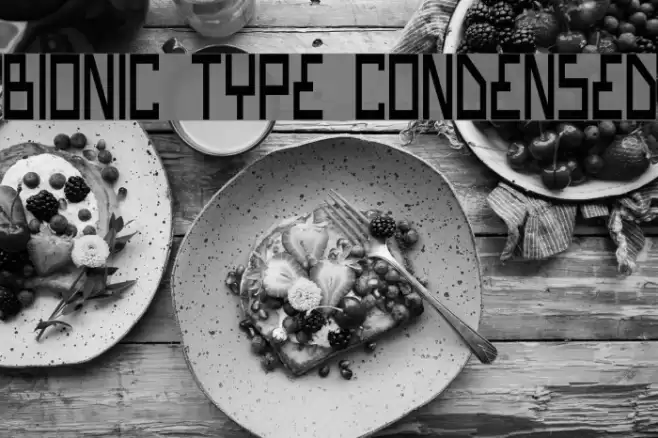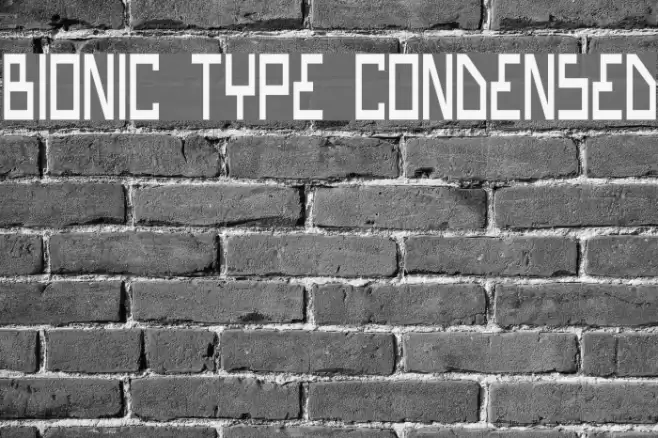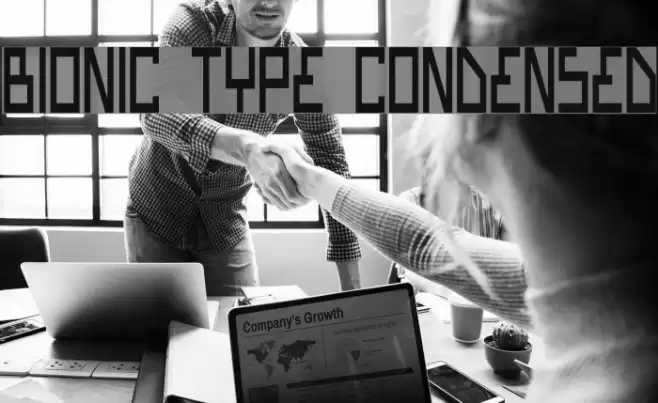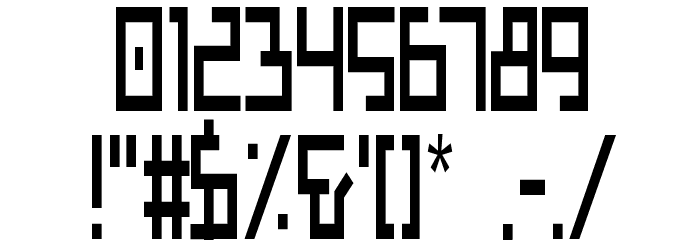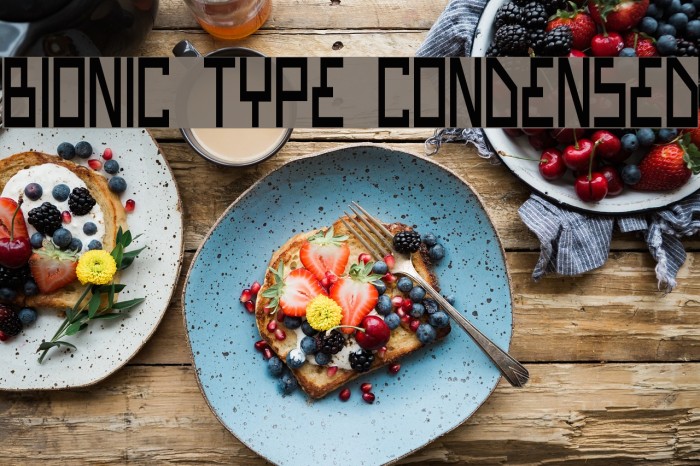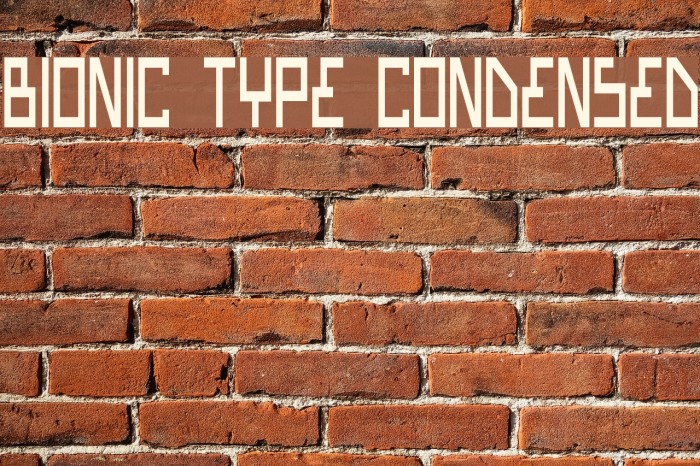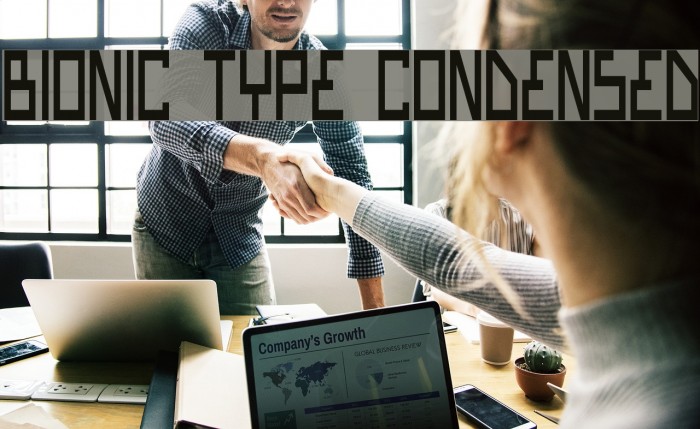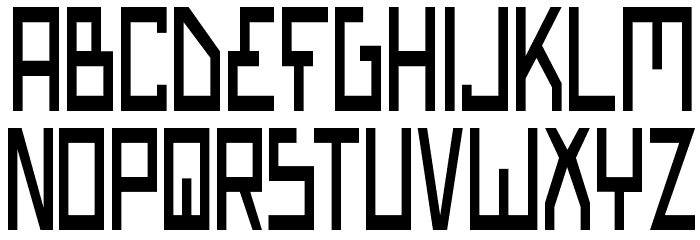
Bionic Type Condensed Font
Bionic Type Condensed Description
This font features a futuristic and geometric design with a condensed structure, characterized by sharp angles and straight lines. The uppercase and lowercase letters maintain a consistent height, creating a uniform appearance. The numerals and special characters follow the same angular style, enhancing the overall cohesive look. The font's design is reminiscent of digital or sci-fi themes, making it suitable for projects that require a modern and tech-oriented aesthetic. Its bold and condensed nature ensures high readability, even at smaller sizes, while the unique character shapes add a distinctive touch.
A futuristic, geometric font with a condensed and angular design from Uncategorized fonts.
- Proposed Projects: Ideal for tech-themed designs, sci-fi movie posters, video game interfaces, and modern branding projects.